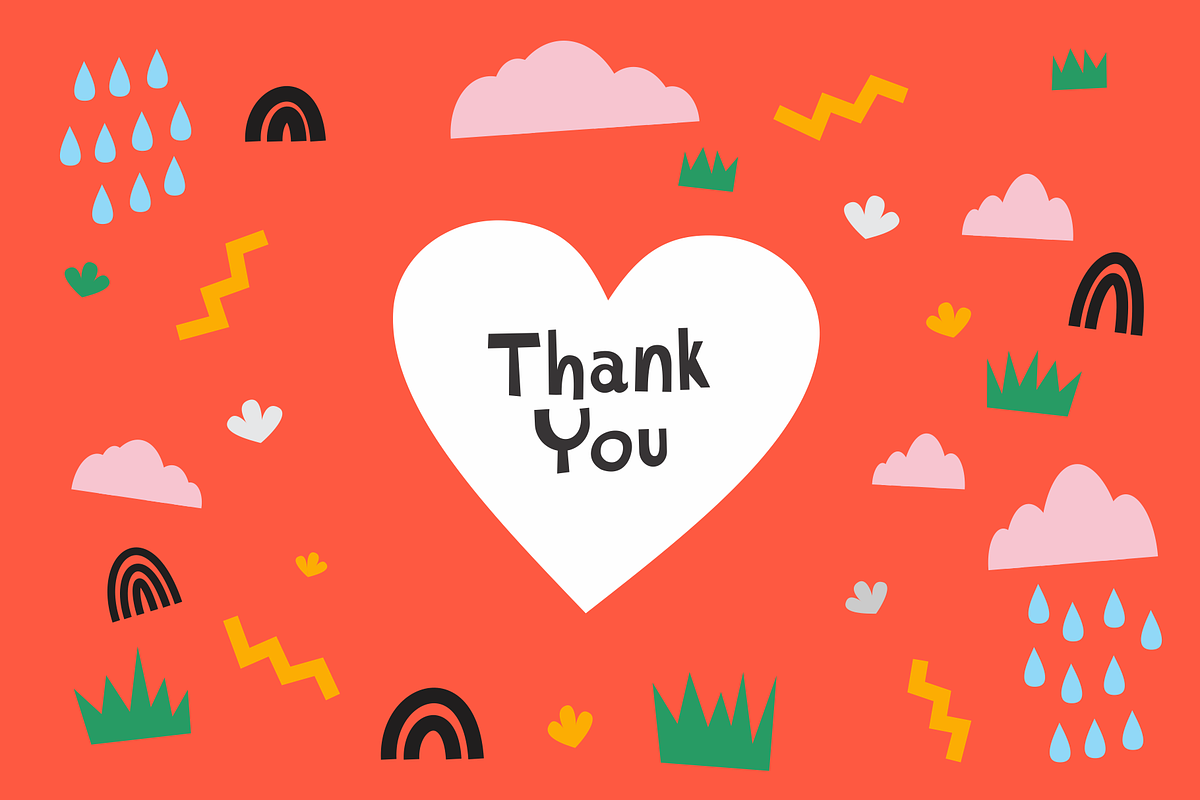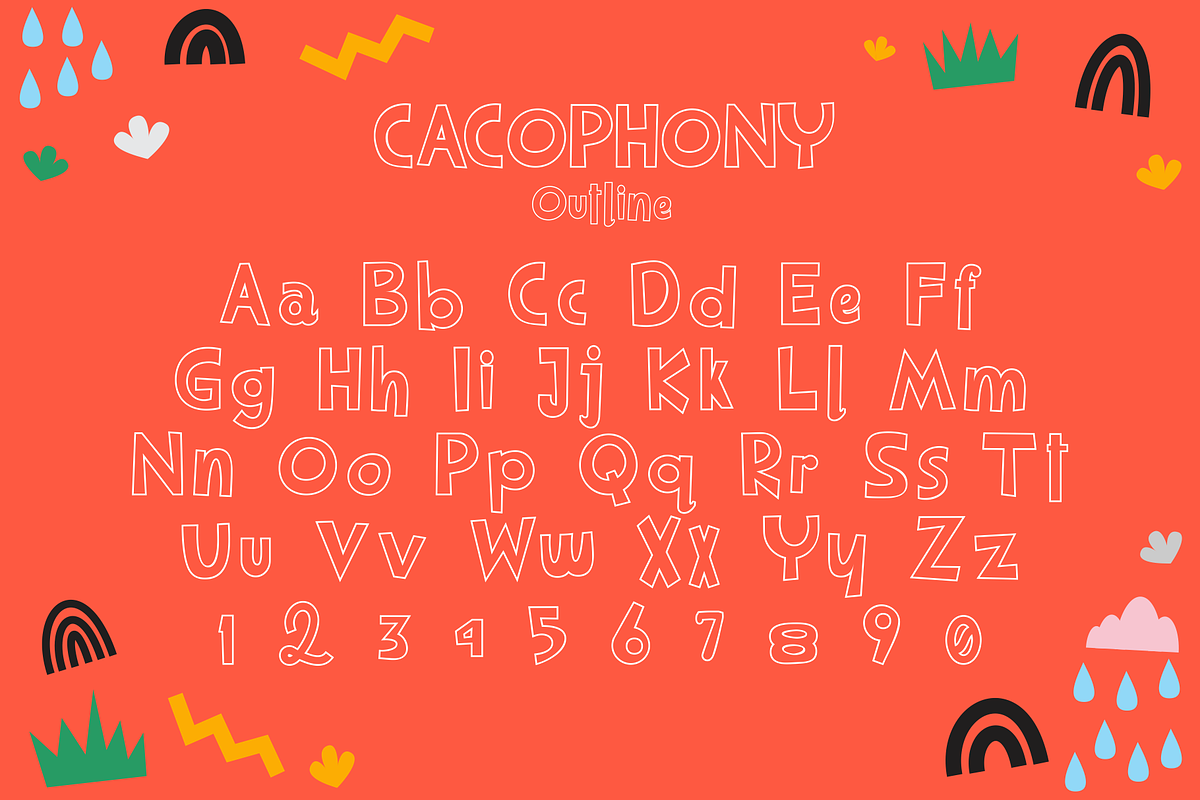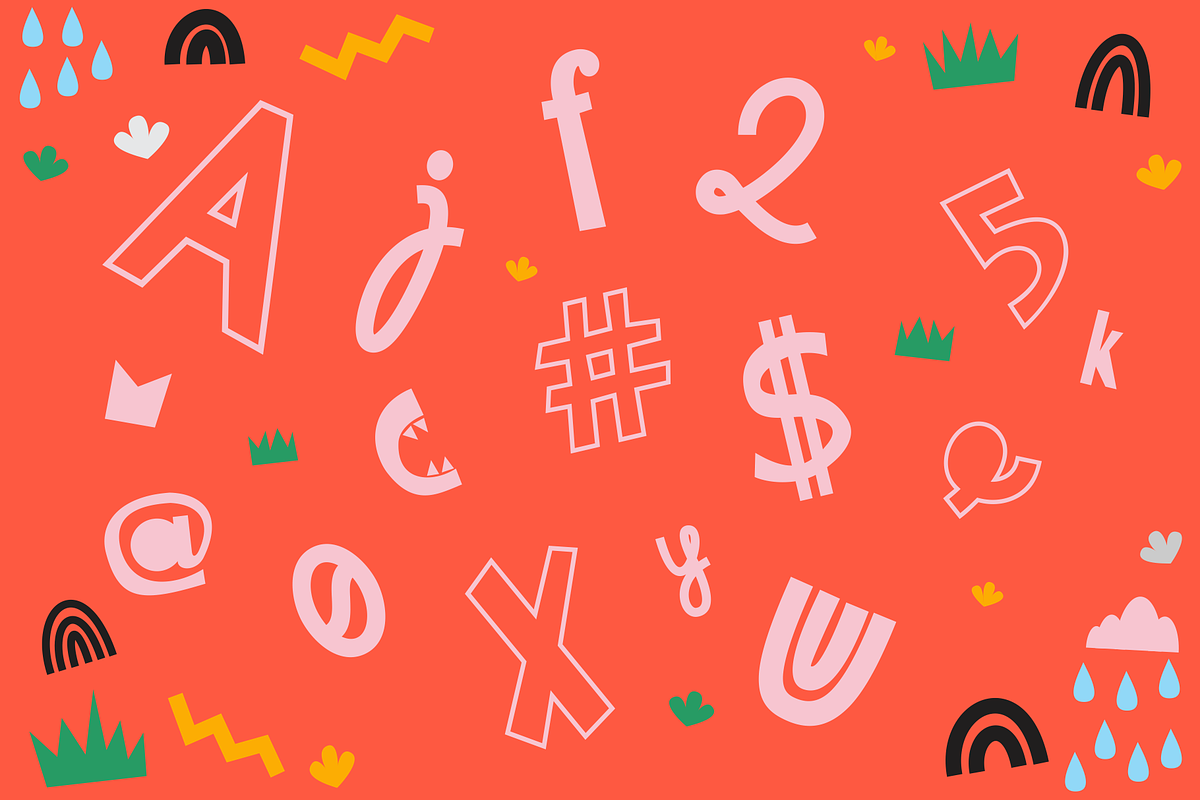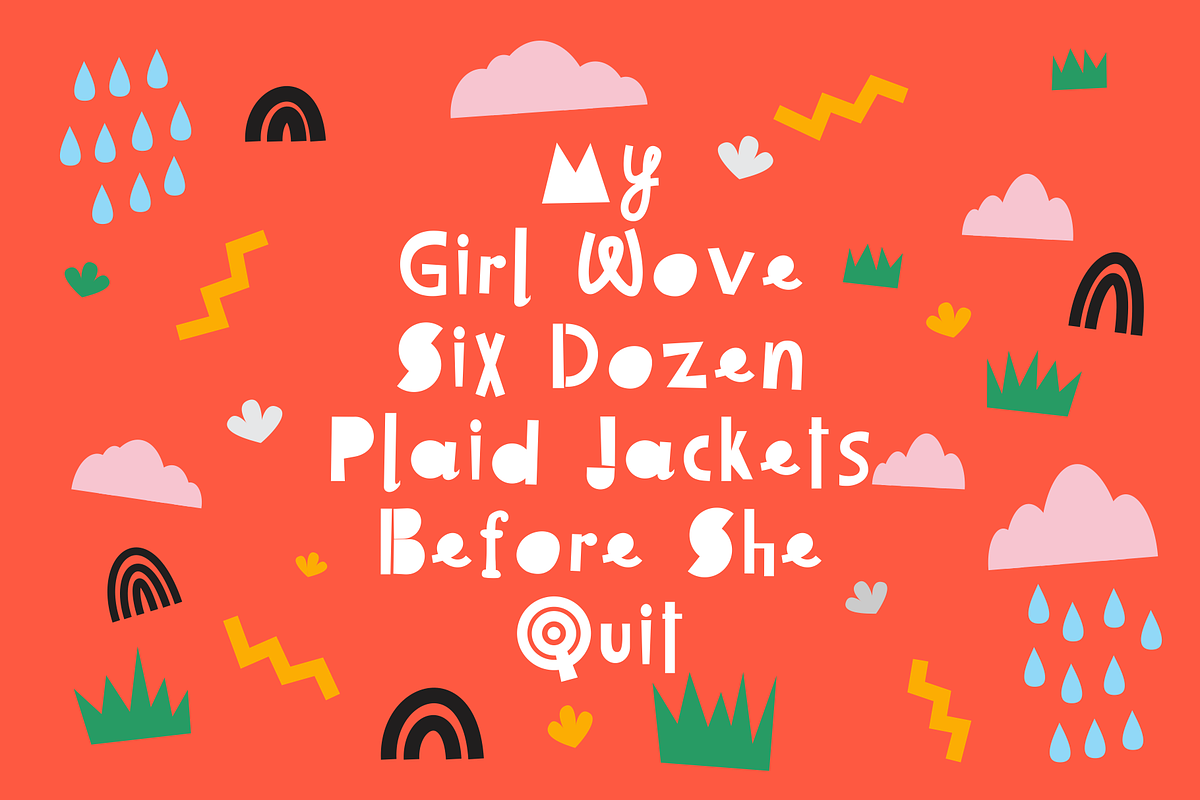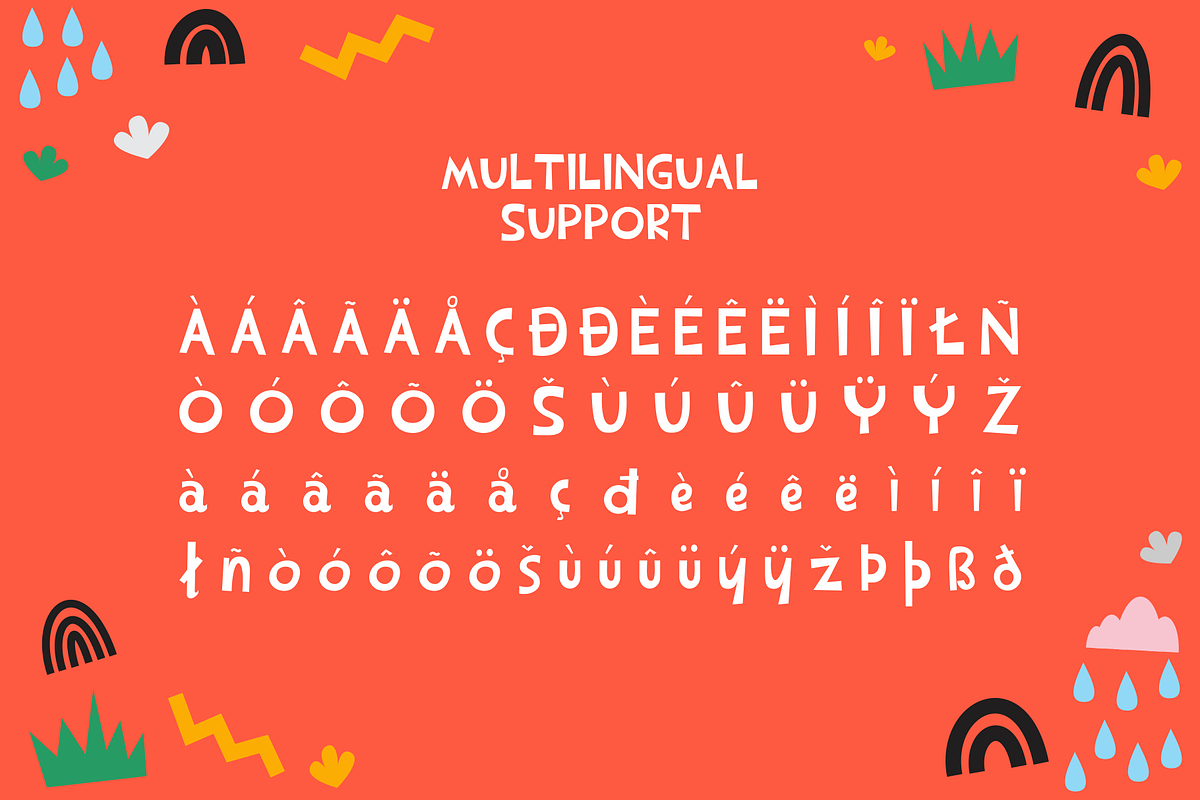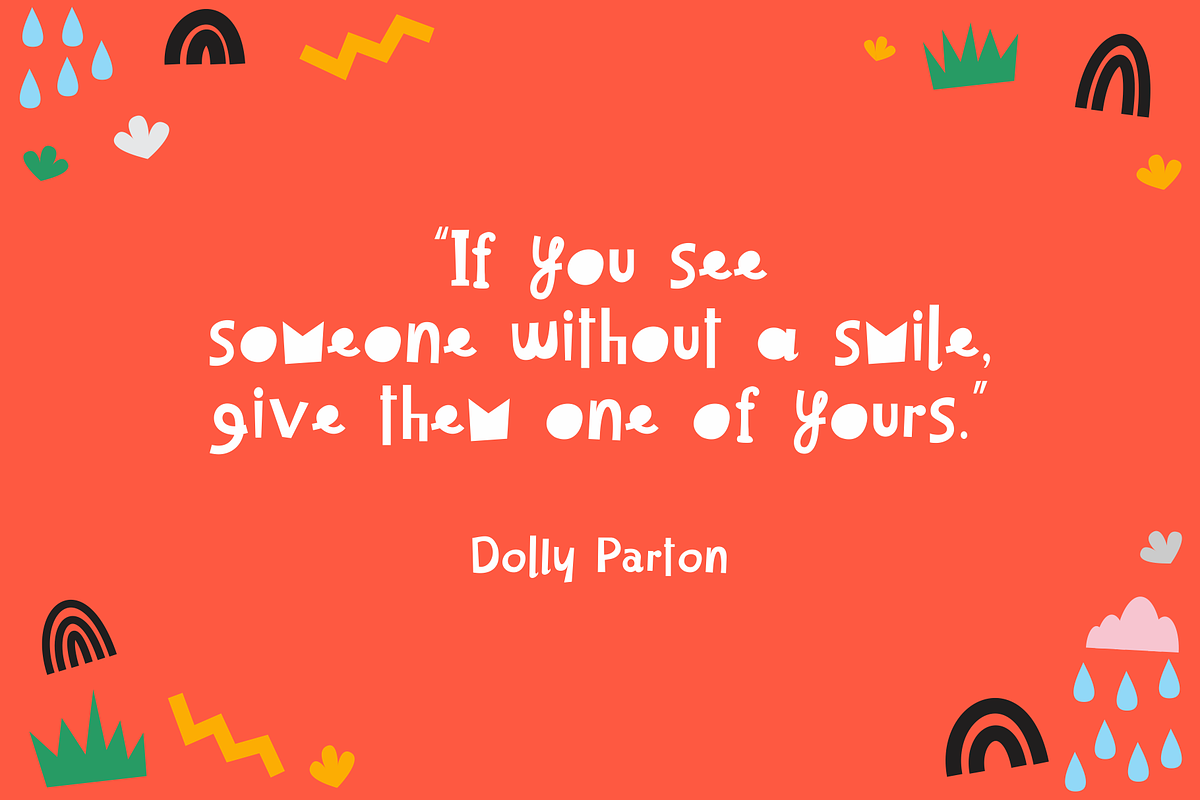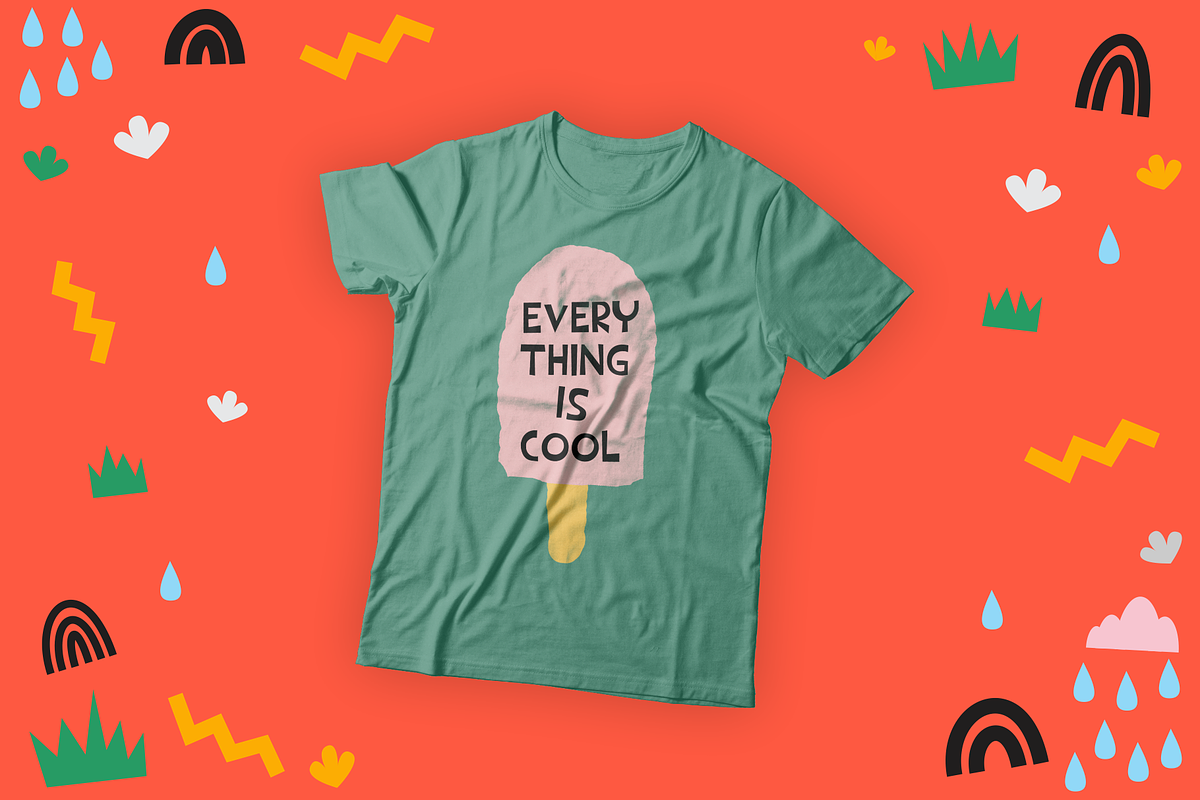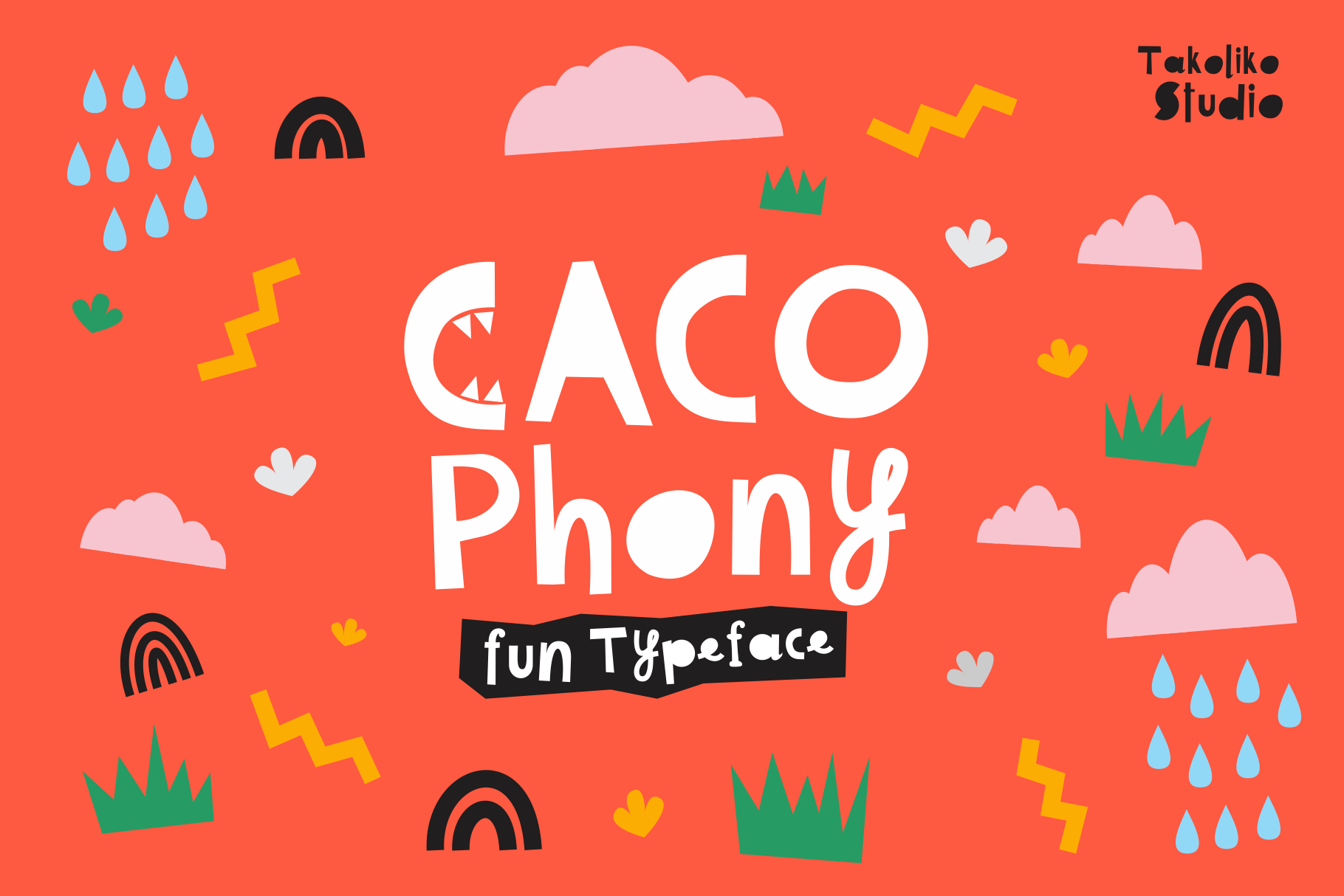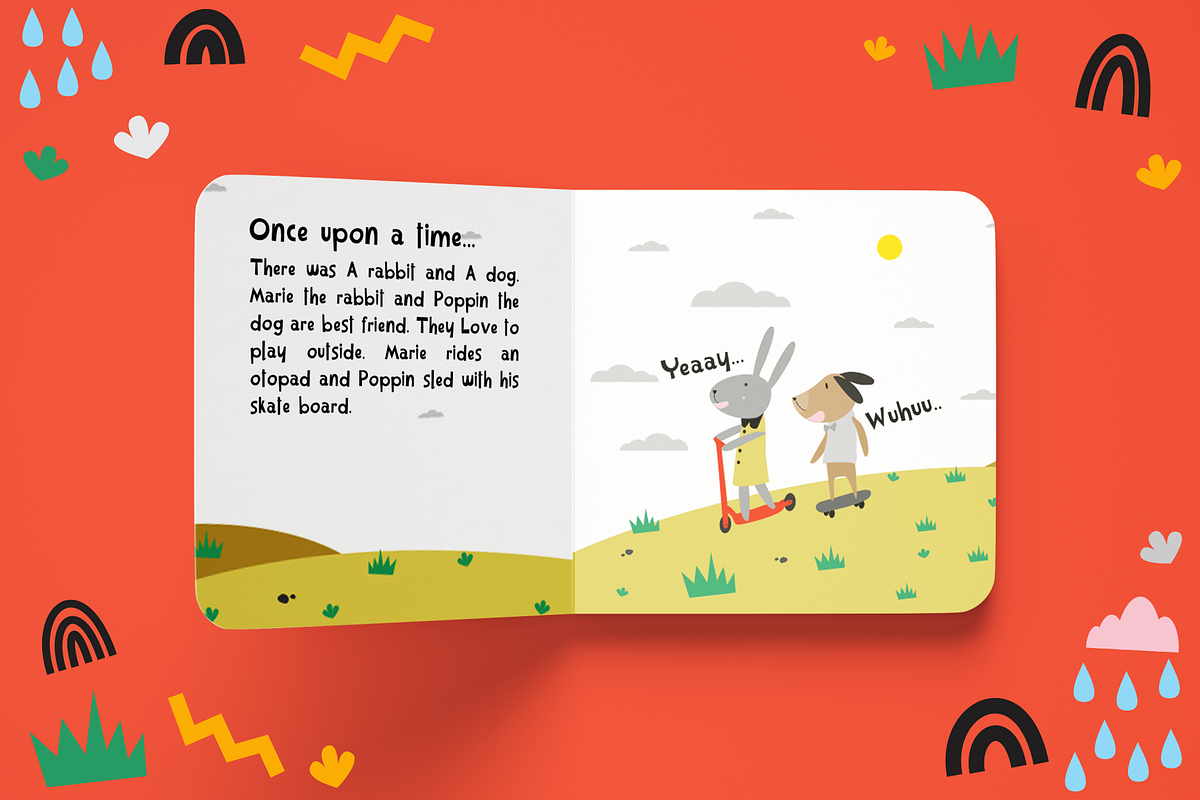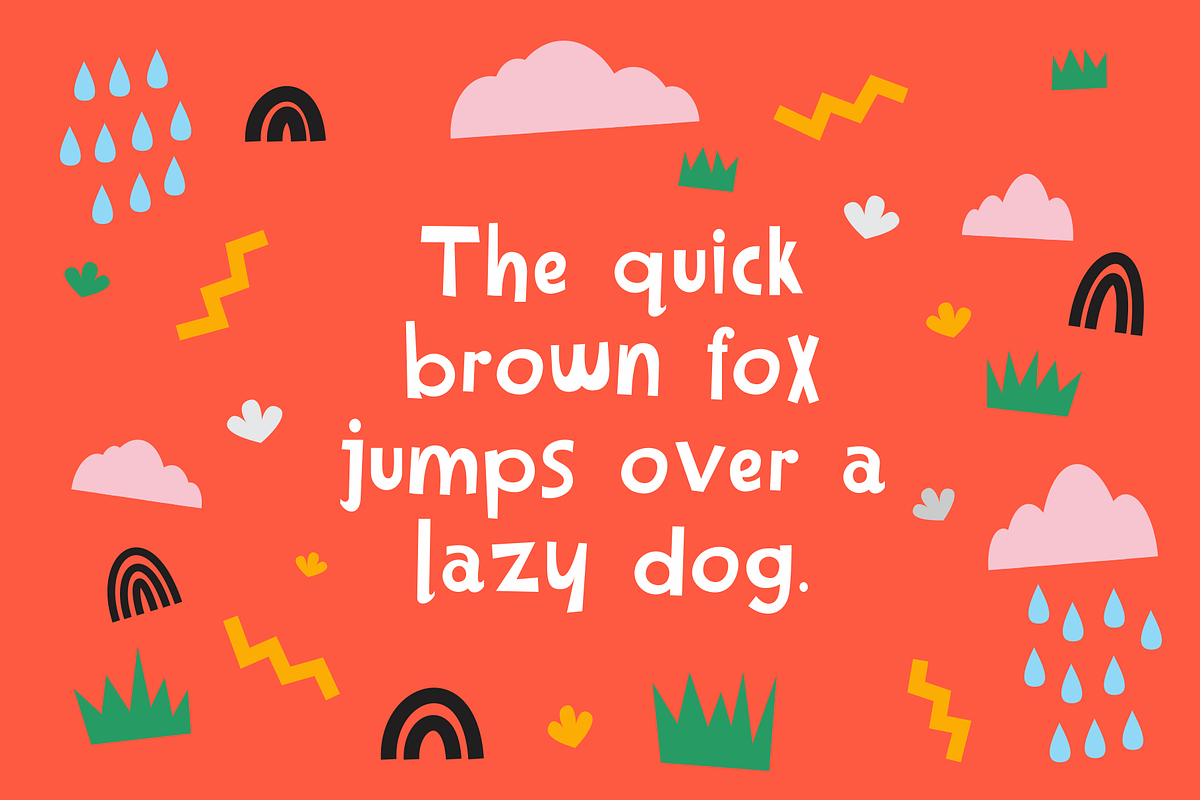
Cacophony - Fun Typeface
Introducing our Fun Typeface "Cacophony"
Cacophony is fun and happy typeface. it has a raw, hand made, and cheerful atmosphere. Inspired by the soul of happines, cheerfulness and passion. Cacophony combine the different kind of glyphs on each letter into a harmonic feeling. Cacophony came with 3 font files, reguler, alternates, and outlined fonts. It support multilingual language. It can easily be matched to an incredibly large set of projects, and good for communicating your brands. If you want to make a design that raw and fun also cheerful, Cacophony is your good matches.